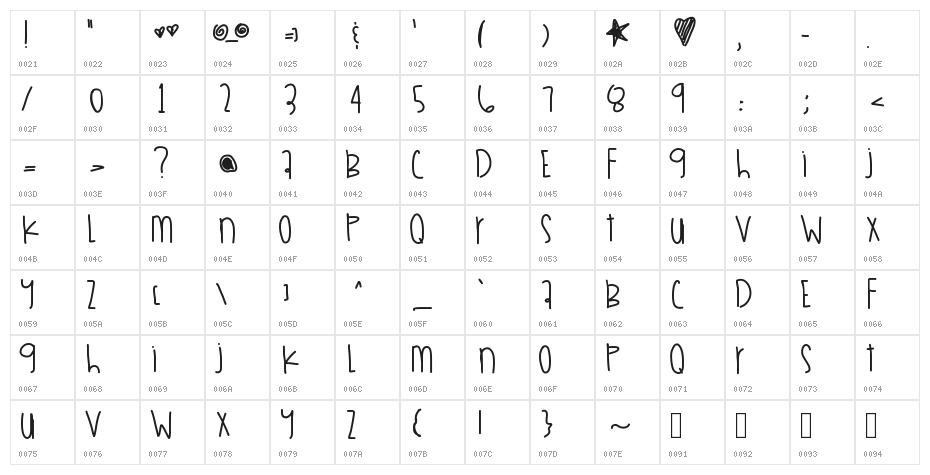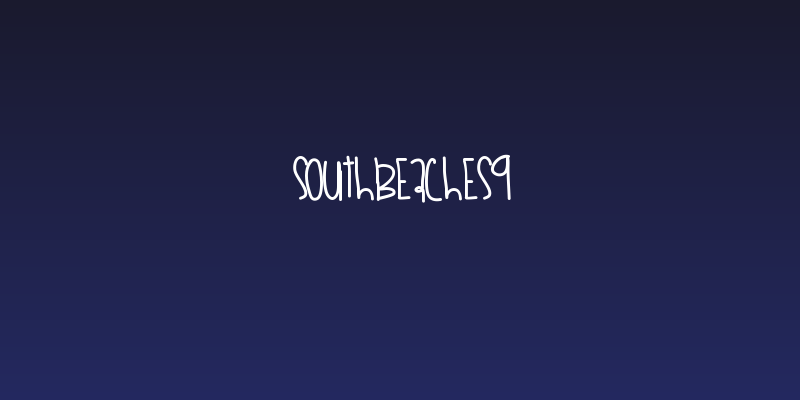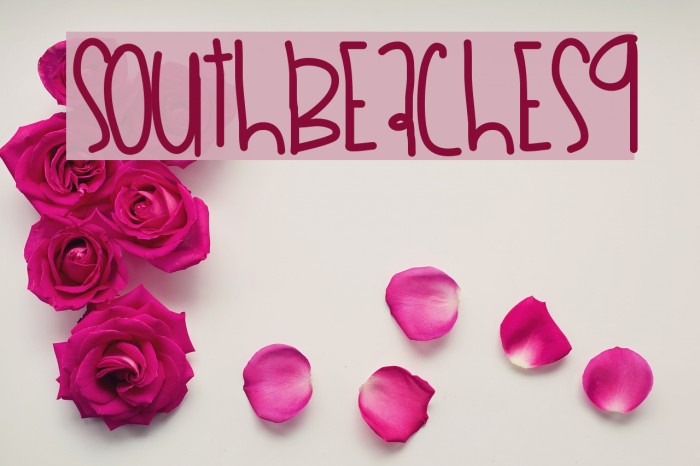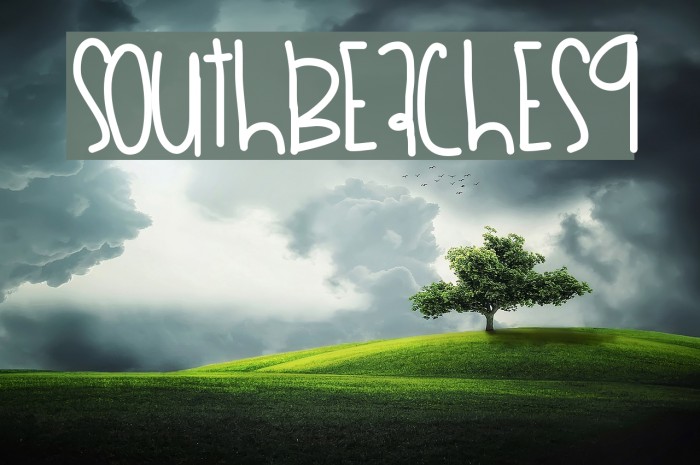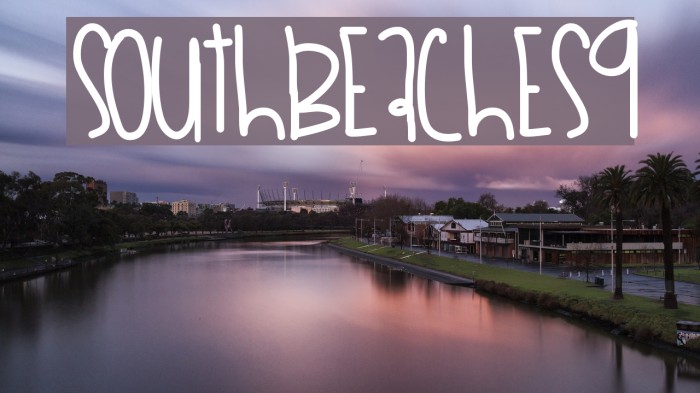
SouthBeaches9 Font
SouthBeaches9 Description
This playful and whimsical font features a handwritten style with a casual and relaxed appearance. The characters are tall and slightly narrow, with rounded edges that give a friendly and approachable feel. The strokes are consistent in width, providing a uniform look across all letters. The font includes a full set of uppercase and lowercase letters, numbers, and a variety of special characters. Its informal style makes it suitable for projects that require a personal touch or a fun, lighthearted vibe.
Fonts by Des Gomez
| Proposed Projects | Ideal for greeting cards, children's books, playful branding, and social media graphics. |